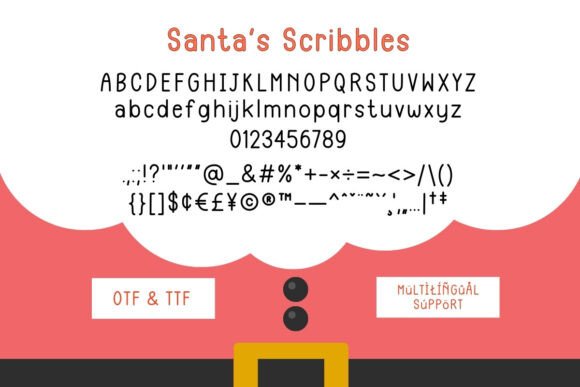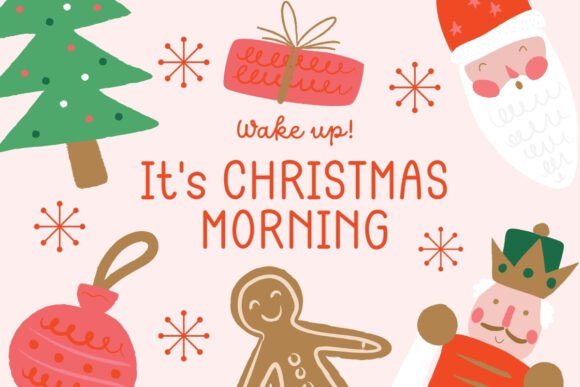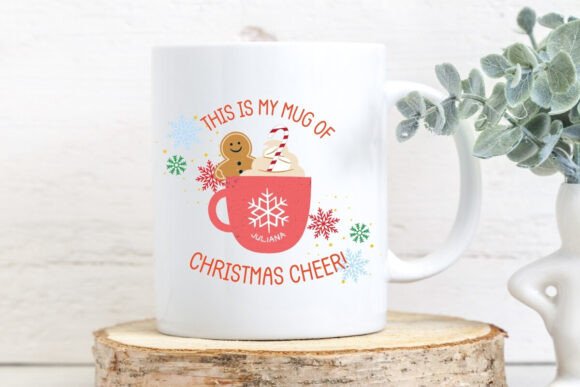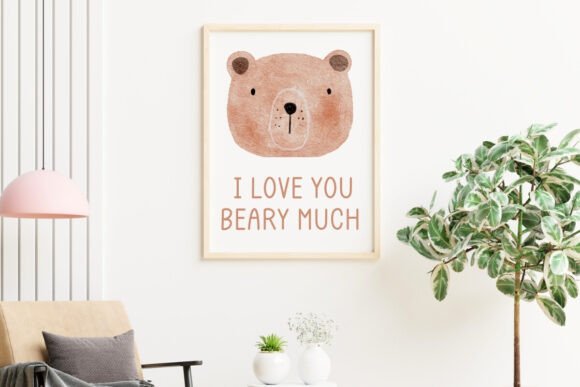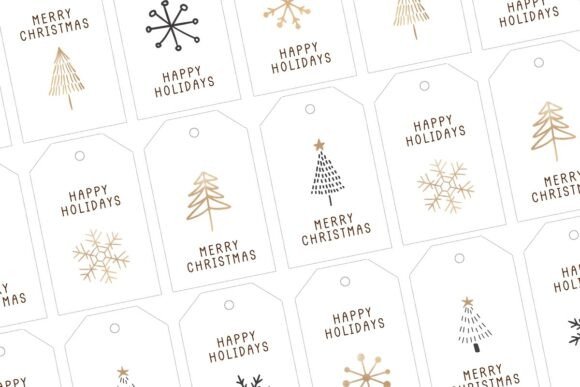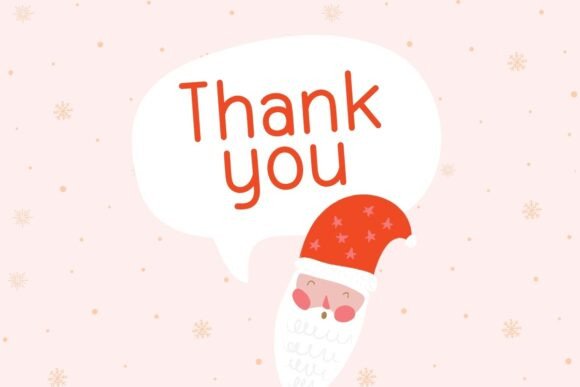
Introduction to Santa’s Scribbles Font
Do you remember the feeling of excitement and wonder as a child, carefully crafting holiday cards and decorations for your loved ones? As you sat at the kitchen table, surrounded by colorful markers and glittery stickers, the possibilities seemed endless. That same magic can be captured with the perfect font – one that embodies the spirit of the season and adds a touch of whimsy to your creative projects.
Enter Santa’s Scribbles Font, a delightful handwriting font that’s perfect for kids’ designs. This charming font is ideal for Christmas crafts, holiday cards, gift tags, classroom activities, and festive printables. With its playful and hand-drawn style, Santa’s Scribbles Font captures the magic of the holiday season, making it a valuable design resource for anyone looking to add a cheerful touch to their high-quality creative projects.
Key Features of Santa’s Scribbles Font
- Unique Hand-Drawn Design: Santa’s Scribbles Font features a distinctive, hand-drawn style perfect for adding a personal touch to creative projects.
Honest Review: Santa’s Scribbles Font
I recently stumbled upon Santa’s Scribbles Font while searching for a unique design resource for a creative project. As a designer, I was excited to give it a try.
What works well: ✨ The font is incredibly versatile and can be used for a variety of purposes, from children’s book illustrations to festive holiday cards. The transparent background feature is also a major plus, allowing for seamless integration into any design. I was impressed with the high quality of the font files, which were crisp and clear.
What doesn’t work well: ⚠️ One of the limitations I encountered was the lack of customization options. While the font is beautiful on its own, it would be nice to have more control over the color and size. Additionally, the free download is only available in a limited number of formats, which may not be compatible with all design software.
Overall, I’m quite pleased with Santa’s Scribbles Font. While it may not be perfect, it’s a great addition to any designer’s toolkit. With a little creativity, you can create some amazing designs using this fun and playful font.
For the most out of Santa’s Scribbles Font, use it for:
- Children’s party invitations and decorations.
- Holiday-themed graphics and designs.
- Handwritten-style text overlays for images.